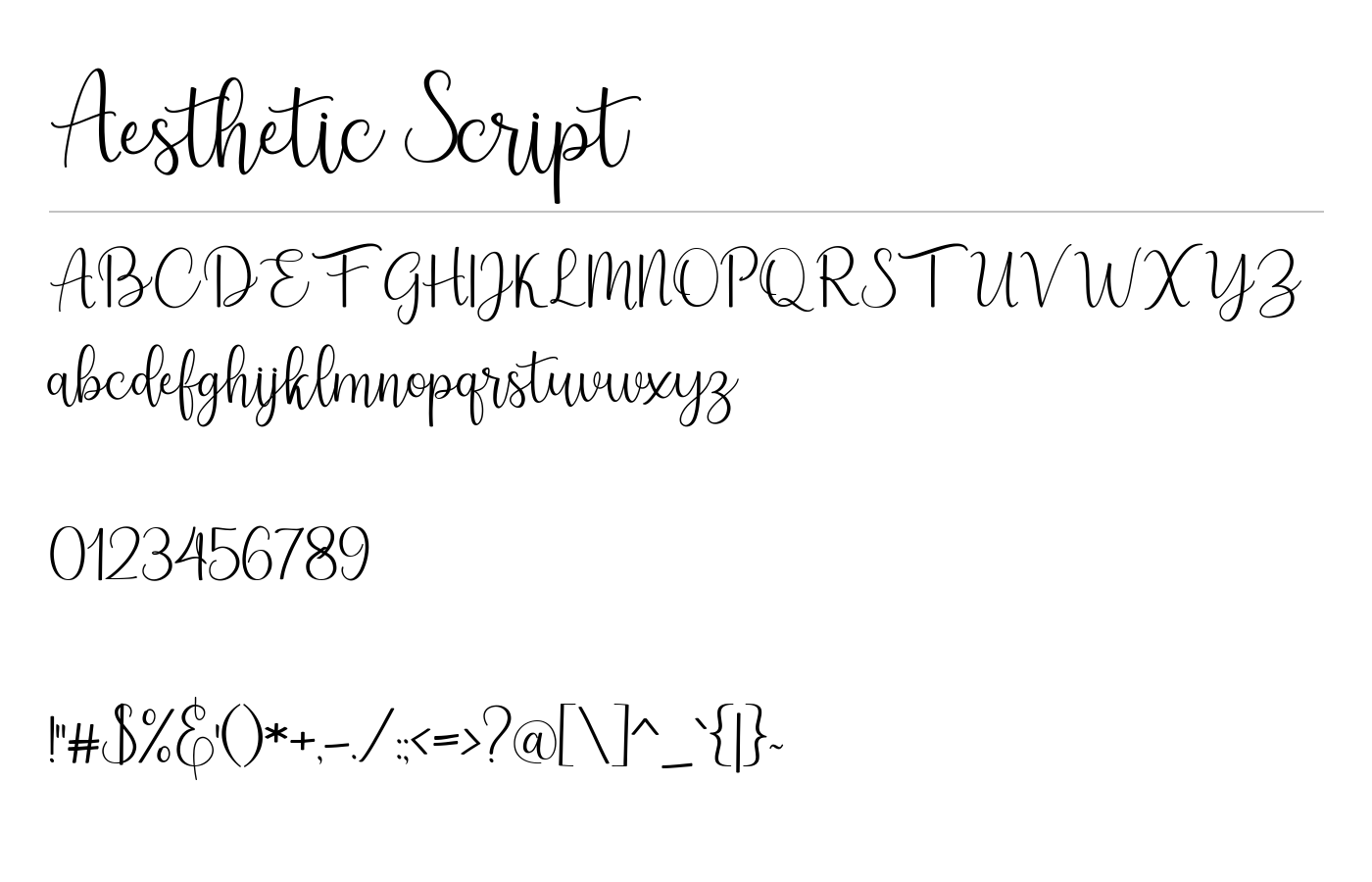
Aesthetic Script is a delicate, light-weight handwritten script font with elegant, flowing letterforms and a playful yet refined personality. Its tall, narrow characters with consistent thin strokes and subtle loops make it ideal for feminine branding, invitations, and stylish editorial projects, adding a personal and graceful touch without overwhelming the design. This font shines in contexts where a soft, artistic, and approachable aesthetic is desired.
Aesthetic Script Font
About Aesthetic Script Font